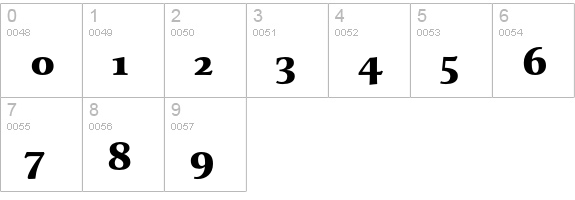
Mentor Black SC is a maximum-weight, dramatic variant in the Mentor typeface family \xE2\x80\x94 well suited to maximum-impact headlines, posters, and packaging.
Mentor Black SC font is a sophisticated and elegant typeface that exudes a sense of timeless charm. With its sleek and modern design, this font is perfect for adding a touch of class to your projects. The sharp serifs and clean lines of Mentor Black SC make it ideal for headlines, logos, and branding materials. What sets Mentor Black SC font apart is not only its stylish appearance but also its versatility. Whether you're designing a website, creating a poster, or crafting a business card, this font will elevate your work to the next level. And the best part? Mentor Black SC font is available for free download at FontsMarket.com. So you can easily access this stunning typeface and use it in your projects without any hassle. Don't miss out on the opportunity to enhance your designs with the elegance of Mentor Black SC font.